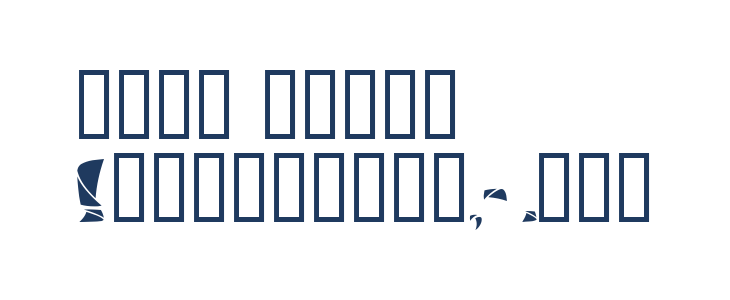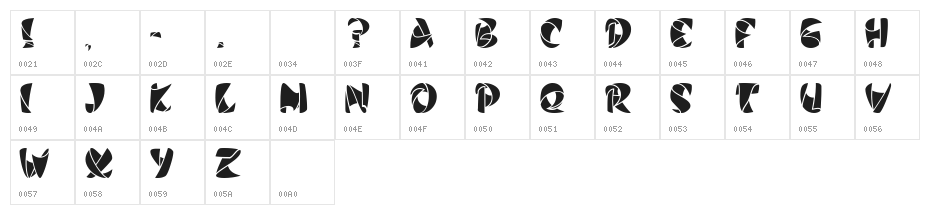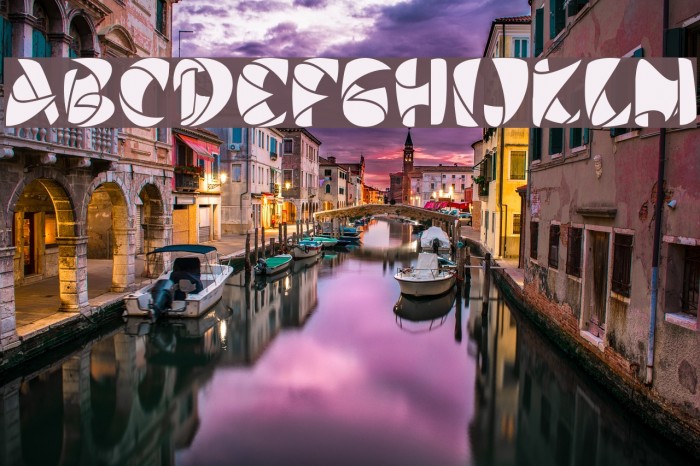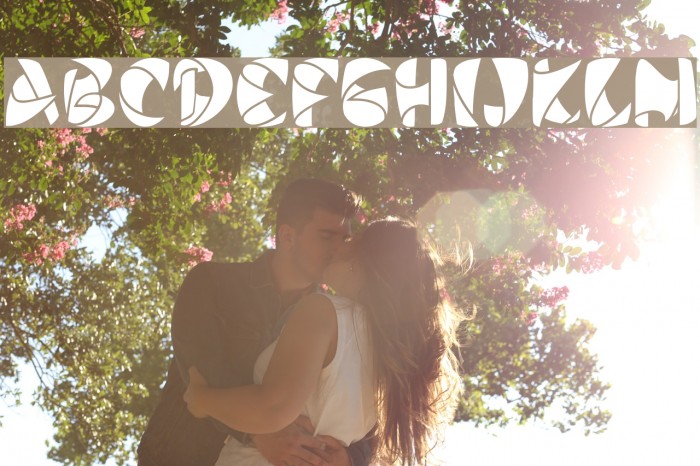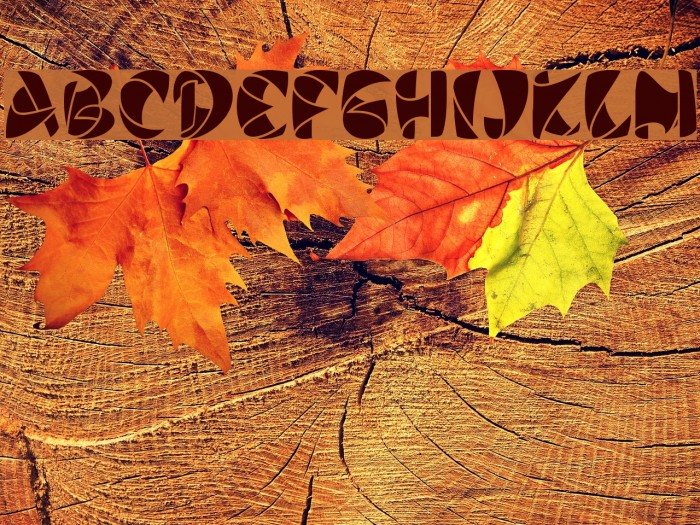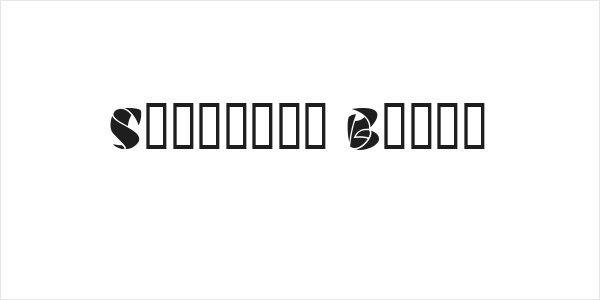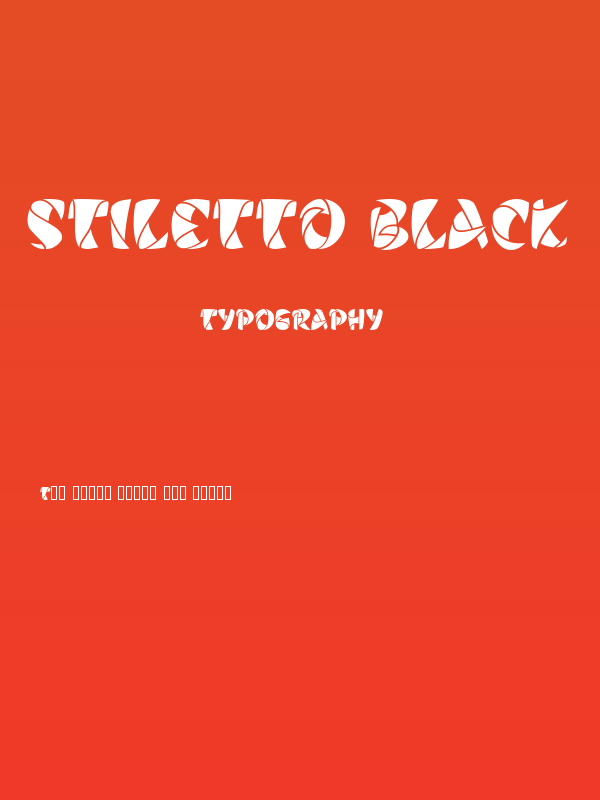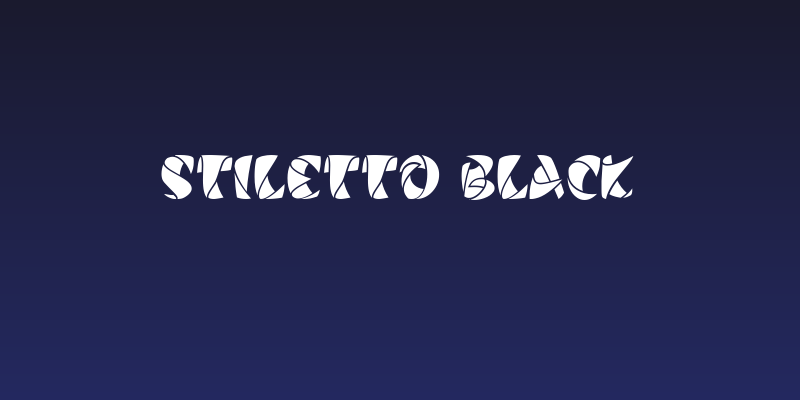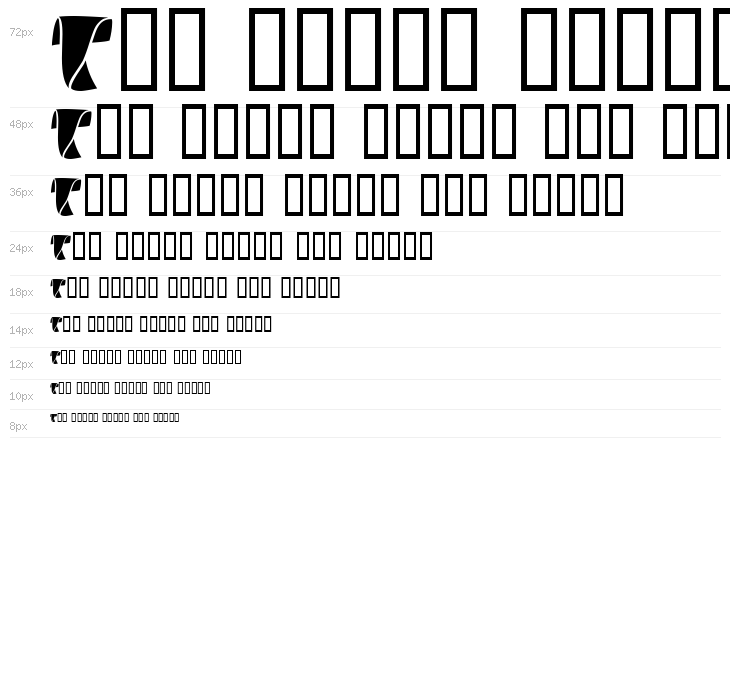
Stiletto Black Font
Stiletto Black Description
This font features a bold and dramatic style with a high contrast between thick and thin strokes. The characters are crafted with a unique, artistic flair, incorporating sharp angles and curves that create a sense of movement and energy. The uppercase letters are particularly striking, with each character showcasing a distinct and creative design. The font lacks lowercase letters and numerals, focusing instead on a decorative approach that emphasizes its visual impact. The special characters maintain the same bold and artistic style, making them suitable for creative and expressive design projects.
Use CaseLogos, Headlines
Proposed ProjectsIdeal for logos, posters, and branding materials that require a strong visual impact.